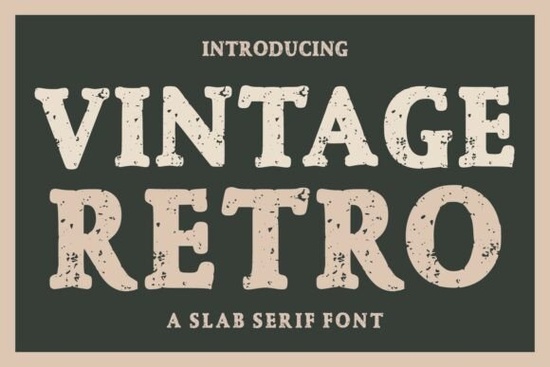
Vintage Retro Font is a standout choice for anyone looking to add a touch of nostalgia and character to their design projects. This bold and authentic slab serif display font draws inspiration from classic western typography, vintage signage, and retro Americana aesthetics. Its strong serif letterforms combined with a distressed texture effect create a timeless handcrafted look that brings a sense of history and warmth to any creative work.
Whether you're designing logos, posters, or packaging, Vintage Retro offers a versatile and powerful visual style. The font’s rugged imperfections and aged appearance make it ideal for projects that require a rustic, worn, and authentic feel. It works well in both modern and classic design themes, making it a flexible tool for a wide range of applications.
What Makes Vintage Retro Font Unique?
Vintage Retro Font stands out due to its distinctive combination of bold readability and weathered details. The distressed textures give the typeface an aged look, which can enhance the visual appeal of designs that aim for a vintage or retro vibe. This font is particularly popular among designers who want to evoke a sense of nostalgia without sacrificing clarity or impact.
Its versatility allows it to be used in various contexts, such as café menus, whiskey labels, signage, social media graphics, book covers, and retro advertising designs. The font’s strong presence makes it perfect for projects that need to stand out, whether it's for branding, apparel, or print-on-demand products.
Best Uses for Vintage Retro Font
Designers often turn to Vintage Retro Font for projects that require a bold and memorable typographic presence. For example, it’s great for creating western-themed artwork, retro branding, or masculine logo designs. The font also works well for vintage badges, outdoor-inspired graphics, and handcrafted product packaging.
If you're working on a project that needs a rustic or worn look, this font can help you achieve that aesthetic effortlessly. Its unique character makes it a valuable addition to any designer’s toolkit, especially when working on projects that aim to convey a sense of authenticity and history.
How to Use Vintage Retro Font Effectively
To get the most out of Vintage Retro Font, consider pairing it with simpler typefaces to balance the design. For instance, using it as a headline while complementing it with a clean sans-serif font for body text can create a visually appealing contrast. This approach helps maintain readability while still highlighting the font’s striking features.
Another tip is to experiment with different color schemes. Dark text on a light background can emphasize the font’s boldness, while lighter text on a darker background can create a more dramatic effect. Don’t be afraid to play with spacing and alignment to find the right look for your project.
When choosing a font like Vintage Retro, it’s important to consider the overall tone and message of your project. This font is best suited for designs that aim to evoke a sense of nostalgia, ruggedness, or authenticity. It’s not ideal for minimalist or highly modern styles that prioritize clean lines and simplicity.
Before finalizing your design, make sure to test the font in different sizes and formats. This will help you understand how it performs in various contexts, such as print or digital media. Testing can also reveal any potential issues with legibility or spacing that might need adjustment.
By incorporating Vintage Retro Font into your projects, you can add a unique and compelling visual element that sets your work apart. Whether you're a designer, crafter, or small business owner, this font offers a powerful way to express creativity and style.
Remember to always choose fonts that align with the goals and audience of your project. Vintage Retro Font is a great option when you want to create a lasting impression with a vintage or retro aesthetic. With the right application, it can elevate your designs and bring a sense of history and character to your work.
- Consider pairing with simpler typefaces for balance
- Experiment with color schemes to enhance visual impact
- Test the font in different sizes and formats
- Use it for projects that benefit from a nostalgic or rugged look